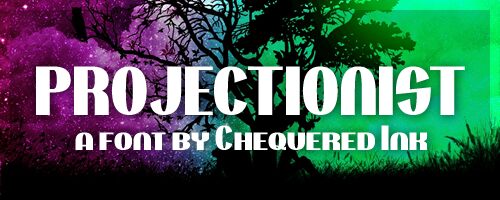
Projectionist
Projectionist, designed by AM, offers a visually striking sans serif experience with its bold weight that delivers an unmissable presence on any canvas. The font's clean lines and modern aesthetic make it a quintessential choice for designers aiming to project strength and clarity in their work. Its robust character set exudes confidence, making it perfect for impactful headlines, dynamic branding projects, and any creative endeavor where a statement is the goal.
Projectionist's versatility shines through as it maintains legibility even at larger scales, ensuring that your message not only stands out but is also easily digestible to the viewer. Whether you're crafting minimalist designs or orchestrating bold visual symphonies, Projectionist is ready to anchor your creations with its distinctive style and commanding allure.
Projectionist by Chequered Ink.